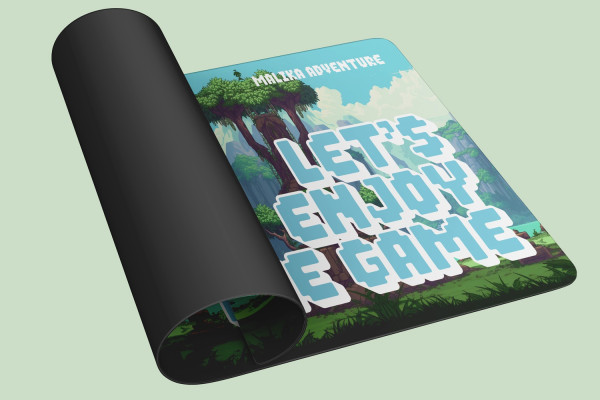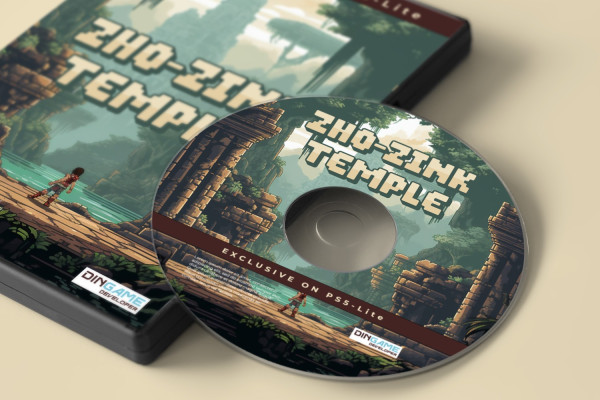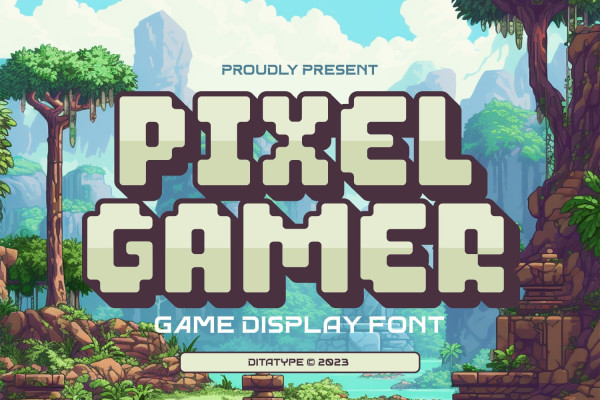
Pixel Gamer Font
Pixel Gamer Font is a charming display font designed in uppercase, inspired by retro pixel art. It features consistent proportions, ensuring a harmonious and balanced visual experience. Each uppercase letter maintains the same size and shape, allowing for a cohesive and uniform composition. This design choice creates a sense of stability and familiarity, reminiscent of classic pixelated graphics.
The rounded shape of this font adds a soft and friendly aesthetic to the font. The curves and smooth edges evoke a sense of playfulness and approachability, making it suitable for a wide range of creative projects. With uneven borders, it embraces the imperfections of retro pixel art.
The variations in thickness and spacing add character and authenticity to each letter, mimicking the limitations of early digital graphics. For the best legibility you can use it in the bigger text.
Pixel Gamer fits in headlines, logos, posters, titles, branding materials, print media, editorial layouts, website headers, and any other projects that aim to evoke a sense of fun and nostalgia. Find out more ways to use this font by taking a look at the font preview.